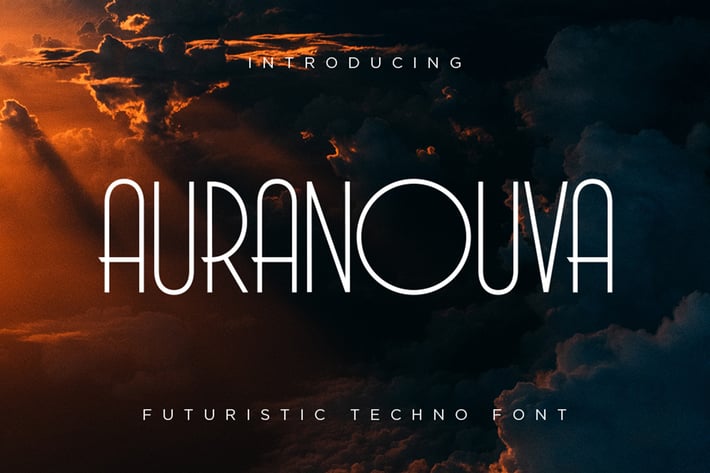
Auranouva - Techno Font
Auranouva is a hi-fi techno fonts inspired by the futuristic vibes that comes along as a trending things nowadays. Any of the technology and futuristic vibes needed, Auranouva is an easy way to get out.